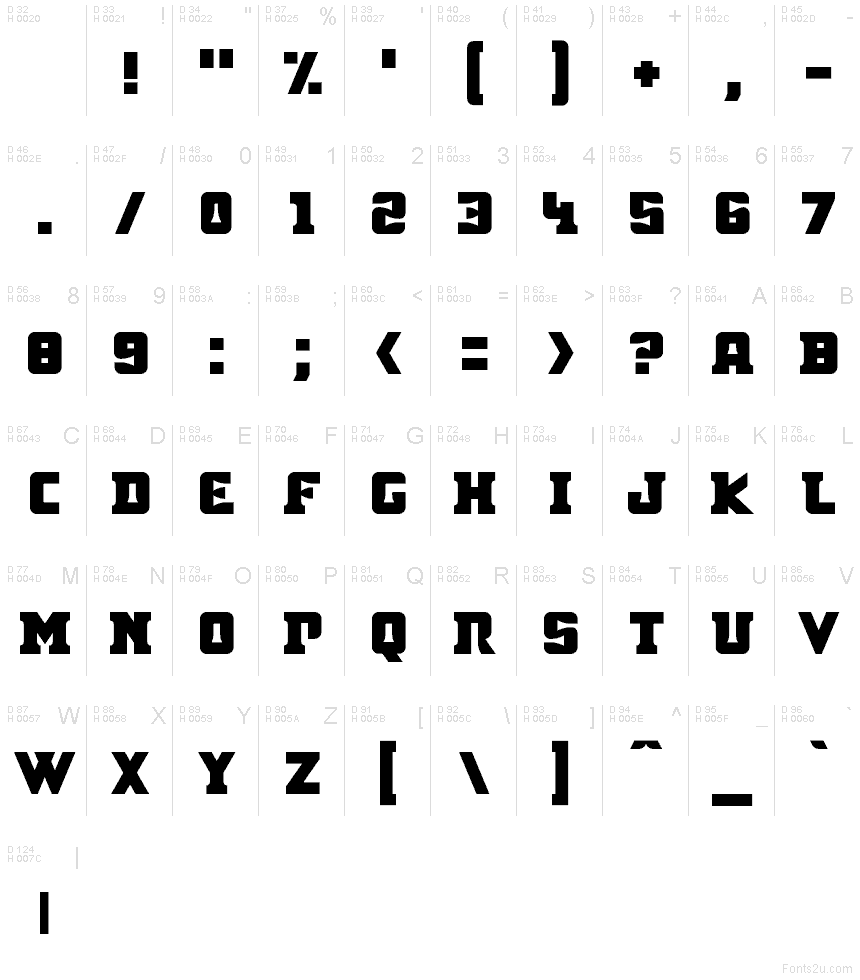
CoyoteSerif-Regular
Coyote Serif font is a bold display typeface by Naan Type Studio that features a strong and robust aesthetic. The modern geometric shapes of this free font were influenced by industrial themes, in addition to animal power. Get ready for an assertive statement in every design where you use this particular strong typeface.
Available use cases include packages, posters, headings, large paragraphs, logos, book covers, titles in magazines and newspapers layouts among others.